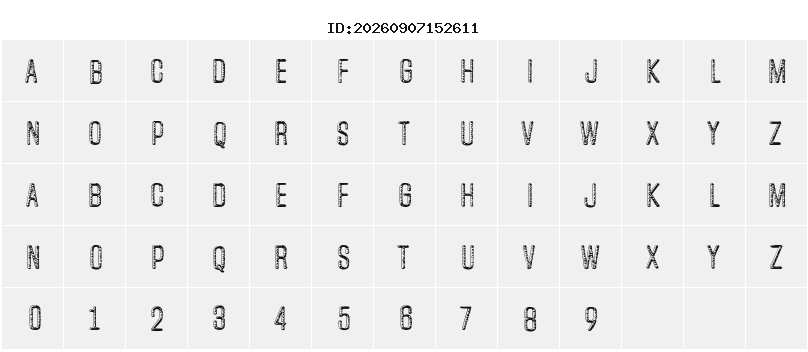
Unfinished Sympathy Preview
• Font Name: Unfinished Sympathy
• Full Font Name: Unfinished Sympathy
• Version: Version 1.00 November 7, 2015, initial release
About Unfinished Sympathy.ttf
Unfinished Sympathy.ttf is a modern, elegant sans-serif font designed for ultimate readability and visual harmony. Perfect for branding, headlines, web design, and print materials.